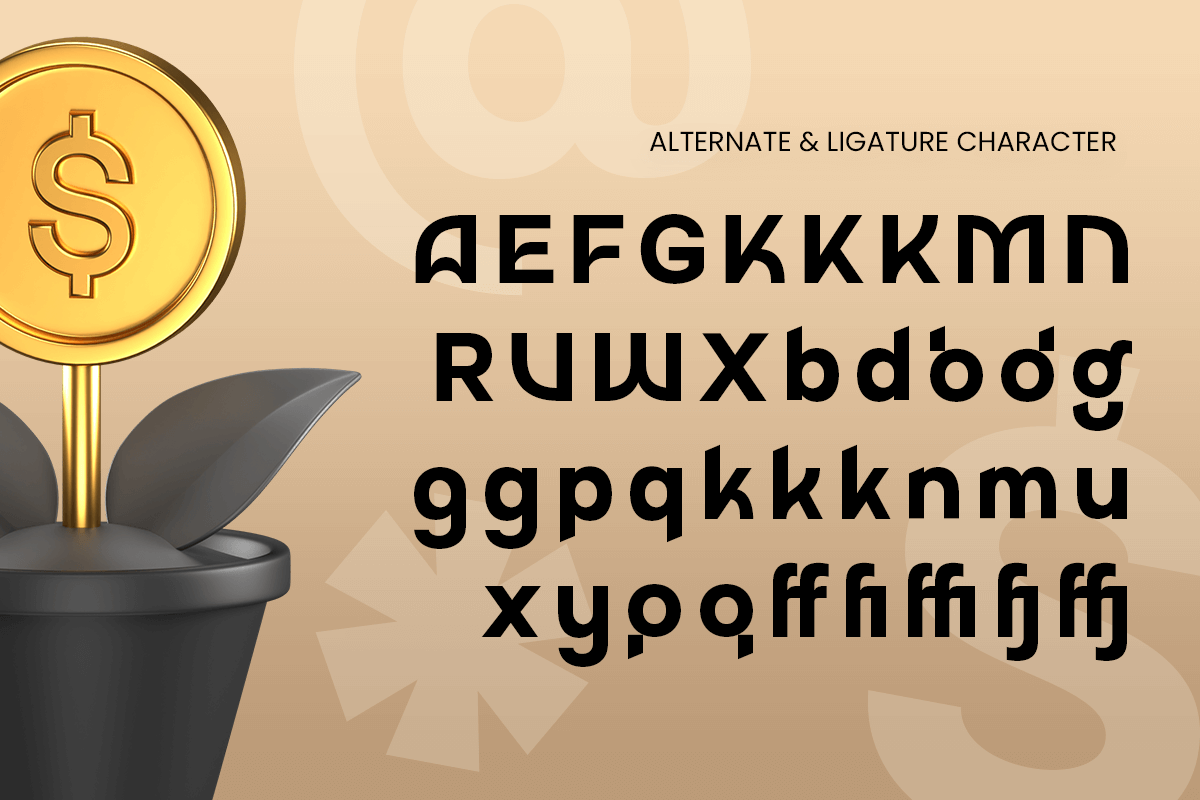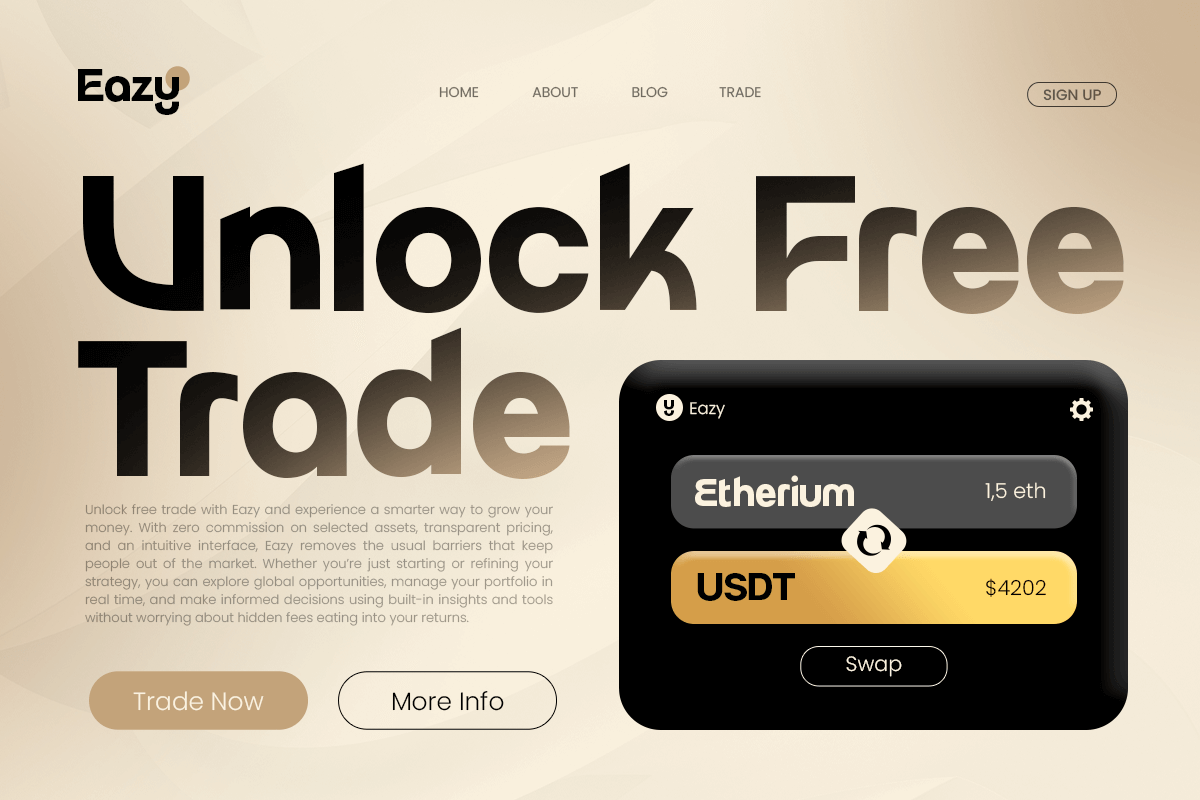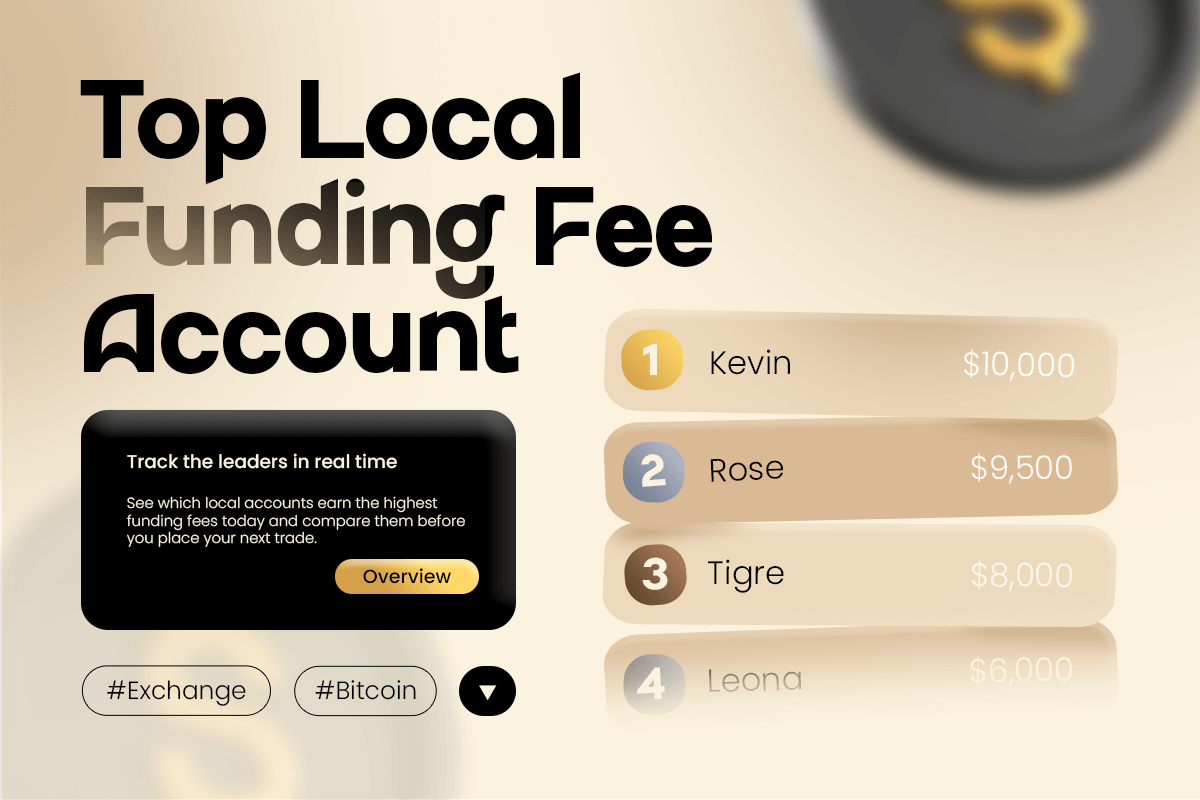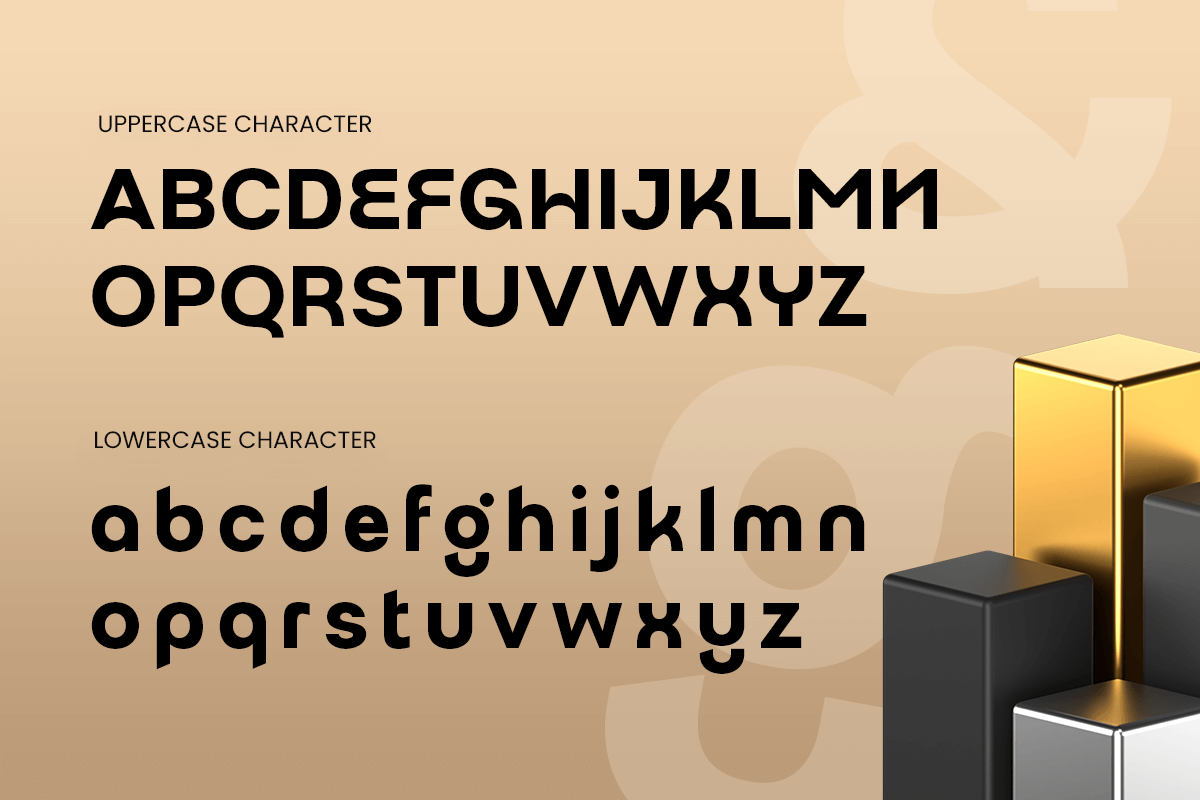
Amatry – Geometric Branding Logo Font
Amatry is a modern geometric logo font designed to create clean, structured, and professional branding. With precise geometry, balanced proportions, and a contemporary aesthetic, Amatry is perfect for logos, brand identities, startups, corporate branding, packaging, and digital design projects.
Built with clarity and consistency in mind, Amatry delivers strong readability while maintaining a distinctive geometric character. Its minimalist yet bold design makes it ideal for modern brands, creative studios, technology companies, and businesses seeking a timeless and confident visual identity across print and digital media.
Amatry – Geometric Branding Logo Font Features:
- Modern geometric style with clean logo-focused design
- Ideal for branding, logos, startups, and corporate identity
- Balanced spacing with strong visual structure
- Perfect for modern, minimal, and professional branding projects